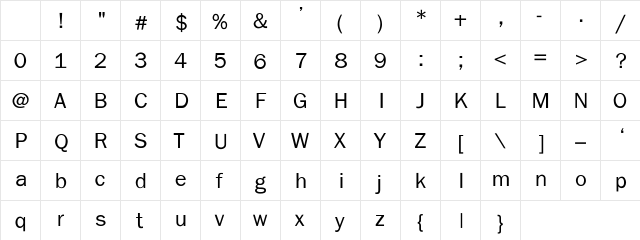
Complete FranklinGothic Light glyph index. Displaying only characters natively supported by FranklinGothic Light font.
FranklinGothic takes a clean, functional approach - its unadorned letterforms prioritise legibility and work reliably across screen and print environments. Its slender proportions lend an understated elegance to any composition.
Font Pairing: Pair FranklinGothic with a medium or bold serif for headlines - the weight contrast creates an elegant, high-end feel.
Pro Tip: Use FranklinGothic with generous tracking and line-height for the most luxurious effect - light sans-serifs reward spacious, considered layouts.